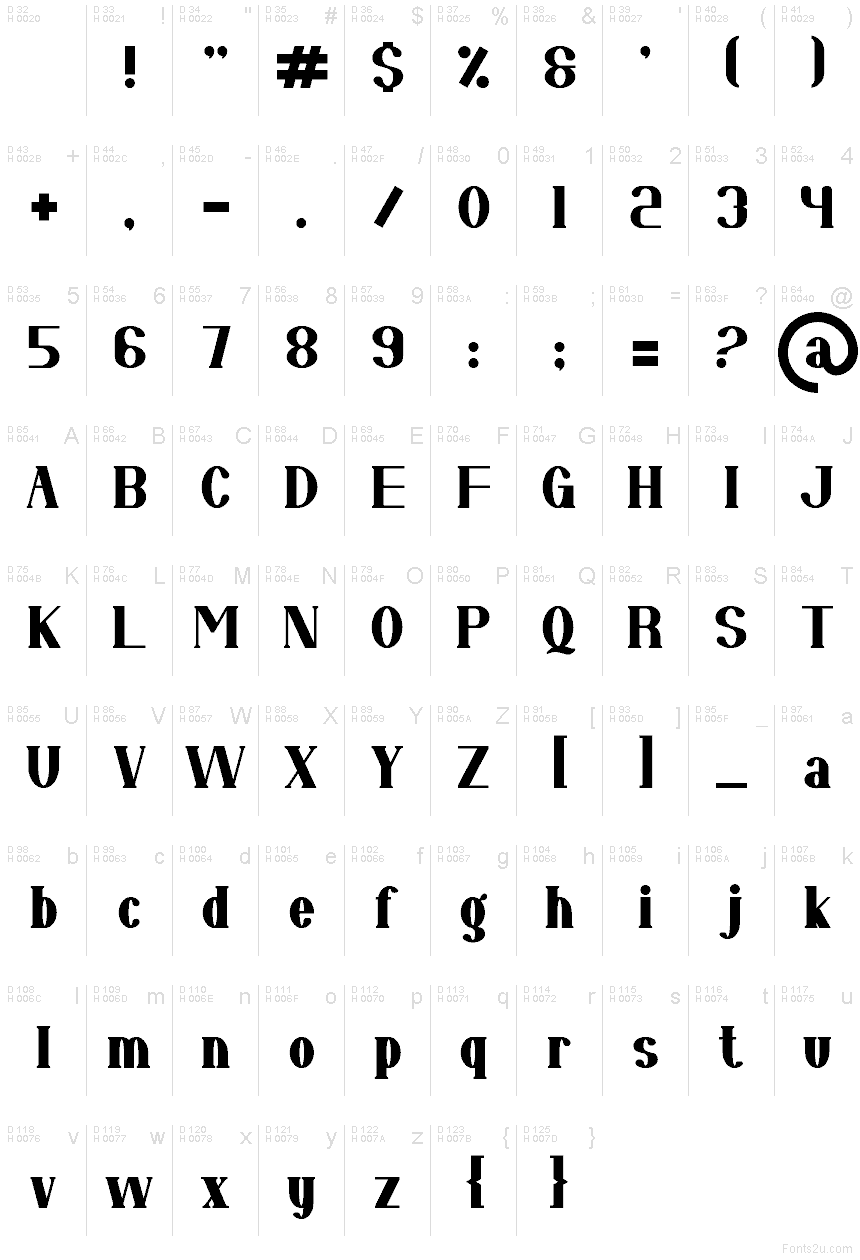
Awan Noyed
Awan Noyed font is a bold serif typeface designed by Gilang Ternadho. With its strong presence and authoritative feel, this vintage-inspired font presents class and elegance with every letter typed. A structured design with sharp serifs is obvious throughout the fonts characters allowing it to achieve visual perfection.
Use Awan Noyed font in poster titles, magazine headers, book covers, package designs, branding/visual identity projects, among other design projects. Other options are catalogue covers, logo designs/monograms, headlines/subheadings in newspapers/online journals.